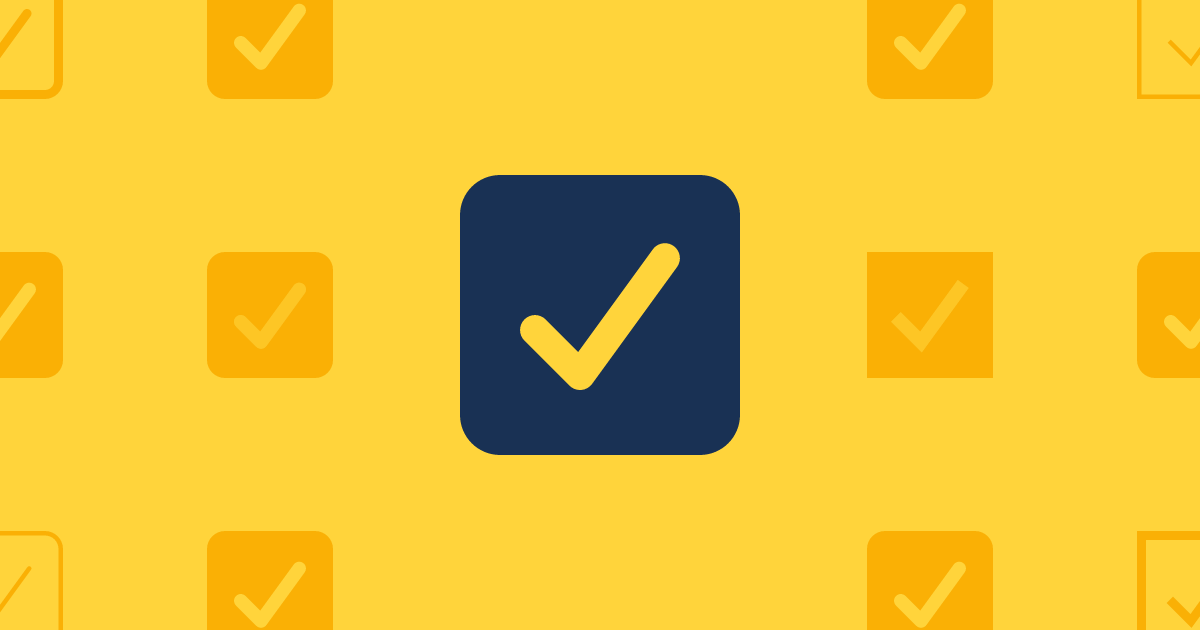
Font Awesome Tick. Web font awesome pro gives you 30,013 icons in 68 categories across 9 styles + brands. The world’s most popular and easiest to use icon set just got an upgrade.
To improve web accessibility, we recommend using aria. Web font awesome pro gives you 30,013 icons in 68 categories across 9 styles + brands. Available now in font awesome 6. Web tick icon in the solid style. Make a bold statement in small sizes. Plus, actual human™ tech support, icon upload,. The world’s most popular and easiest to use icon set just got an upgrade.
Web font awesome pro gives you 30,013 icons in 68 categories across 9 styles + brands. Plus, actual human™ tech support, icon upload,. To improve web accessibility, we recommend using aria. The world’s most popular and easiest to use icon set just got an upgrade. Available now in font awesome 6. Make a bold statement in small sizes. Web font awesome pro gives you 30,013 icons in 68 categories across 9 styles + brands. Web tick icon in the solid style.